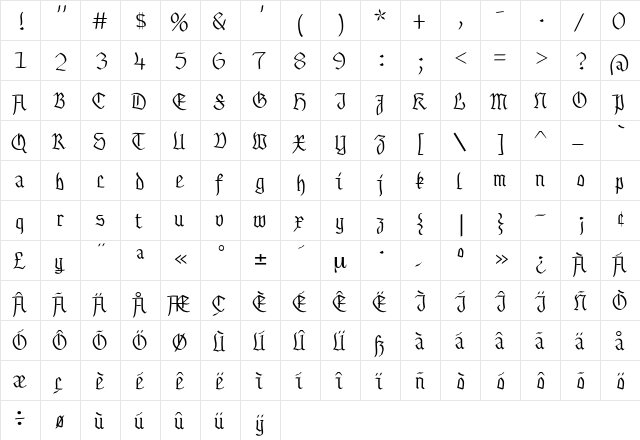
Buchkunst Regular
Design Context for Buchkunst Typeface
Buchkunst is a composed and adaptable typeface that performs quietly and consistently across a wide range of design contexts.